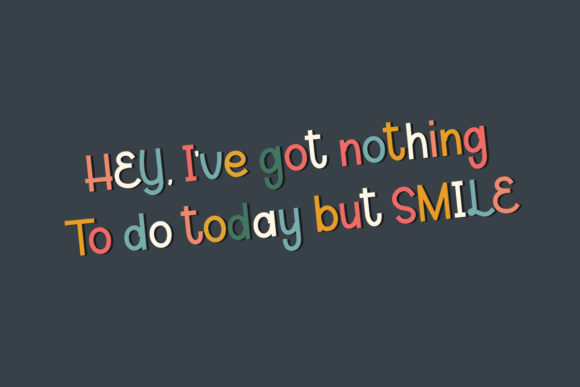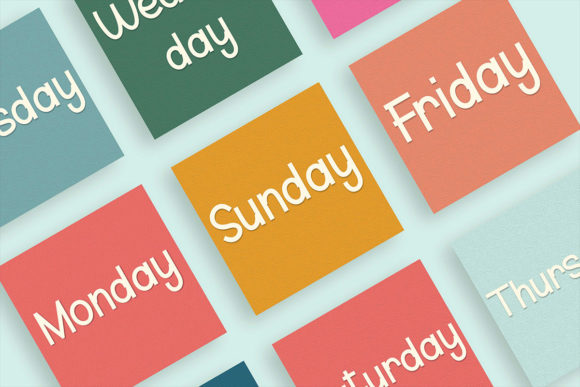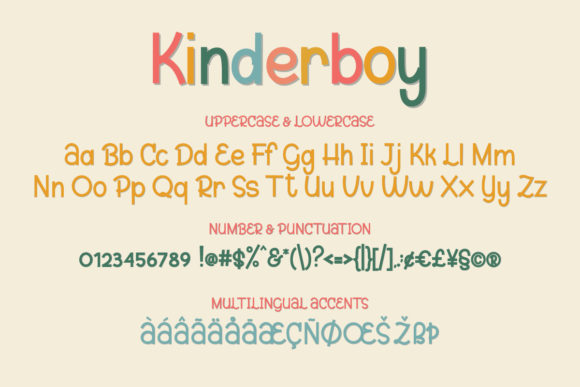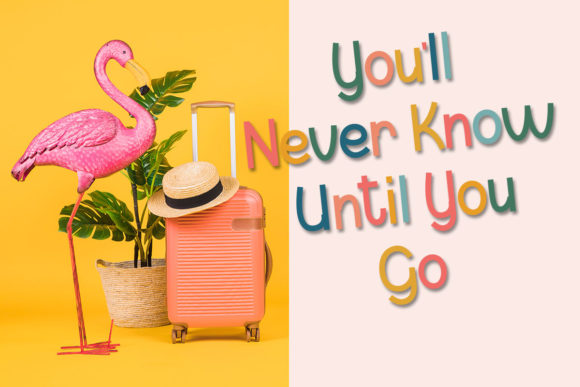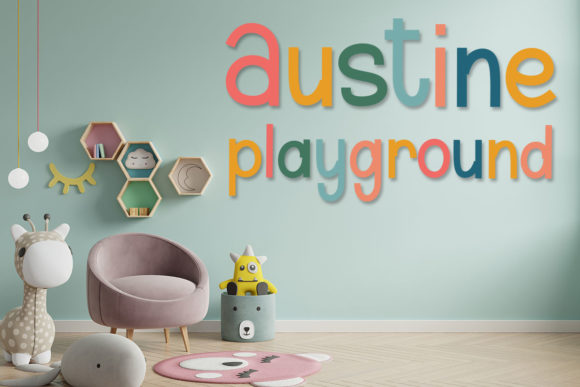
The Perfect Font for the Little Ones: Introducing Kinderboy Font
Who among us hasn’t spent hours scribbling away in a notebook, bringing our imagination to life? As children, we’re encouraged to let our creativity run wild, and our artwork is often the reflection of our boundless energy and curiosity. For designers tasked with creating materials for kids, finding the right font can be a challenge – it needs to be fun, engaging, and easy to read.
Enter Kinderboy Font, a delightful display font that embodies the spirit of childhood playfulness and authenticity. Designed to bring a smile to the faces of children, Kinderboy Font is the perfect choice for any activity or project that requires a touch of whimsy and charm. For designers, Kinderboy Font offers a valuable asset – a font that’s both visually appealing and easy to use, making it an essential addition to any design arsenal.
Kinderboy Font Key Features
- Unique Characteristics: Kinderboy Font features a unique, hand-drawn design that gives it a playful and whimsical feel, making it perfect for children’s books, educational materials, and other projects that require a friendly tone.
- Character Set: The font includes a comprehensive set of characters, including uppercase and lowercase letters, numbers, punctuation marks, and special characters, ensuring that users have everything they need to create engaging and informative content.
- Language Support: Kinderboy Font supports a wide range of languages, including English, Spanish, French, German, Italian, and many others, making it a versatile choice for designers and writers working on multilingual projects.
Kinderboy Font Review
Overall, I’m quite impressed with Kinderboy Font. It’s a modern sans-serif typeface designed specifically for children’s content, and it delivers on its promise. Here’s what I like:
- ✨ The font is playful and friendly, making it perfect for kids’ books, educational materials, and other content aimed at young readers.
- ✨ The letterforms are well-designed, with clear distinctions between similar letters, making it easier for kids to learn and read.
- ✨ The font comes in a range of weights and styles, from light to bold, giving designers flexibility in their projects.
- ✨ The font is highly legible, even at small sizes, which is essential for children’s content where text is often dense.
- ⚠️ The font may not be suitable for more serious or formal content, as it can come across as too playful or childish.
- ⚠️ The font is designed specifically for children’s content, so it may not be the best choice for other types of projects.
- ⚠️ Some users may find the font too simplistic or lacking in character, which can be a drawback in certain design contexts.
Overall, I think Kinderboy Font is a great addition to any designer’s toolkit, especially those working on children’s content. While it may have some limitations, its playfulness and legibility make it a great choice for the right projects.
Tips for Getting the Most Out of Kinderboy Font
Use Kinderboy Font for titles, headings, and emphasis in your designs.
Combine Kinderboy Font with other playful fonts for a unique and creative look.
Experiment with different font sizes and styles to add visual interest to your designs.
Kinderboy Font is perfect for:
Children’s book covers and illustrations.
Playful branding and marketing materials.
Whimsical greeting cards and party invitations.